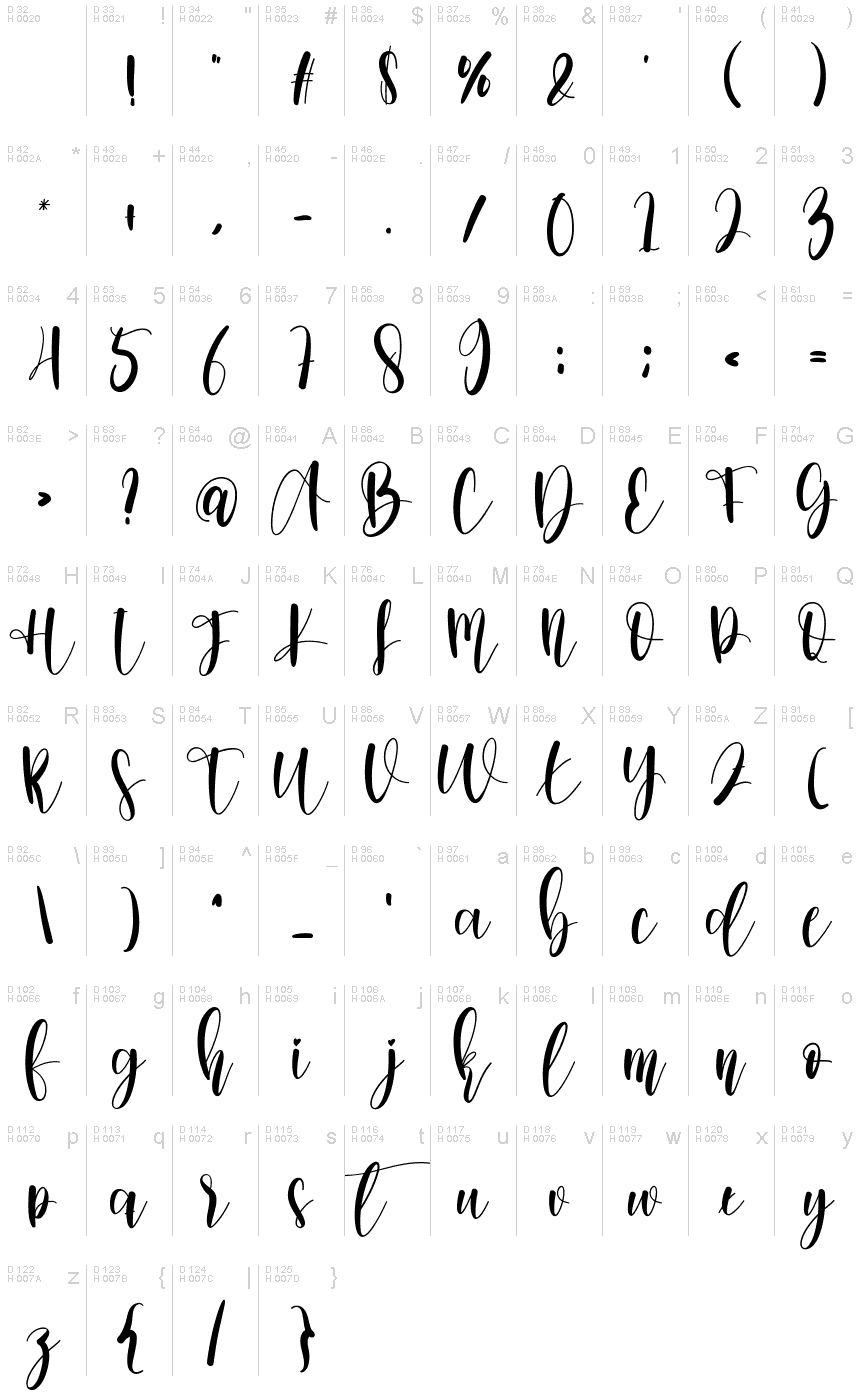
Gloria
Gloria by scratchones is an elegant, calligraphy font that is perfect for adding a touch of sophistication to any project. Use it to create stunning invitations, stylish logos, or beautiful quotes. It's the perfect choice for making a statement!
the latest style letters are perfect for wall displays, wedding invitations, social media post logos,
advertisements, product packaging, product designs, labels, photography, watermarks, invitations, stationery,
and any project that requires taste handwriting.